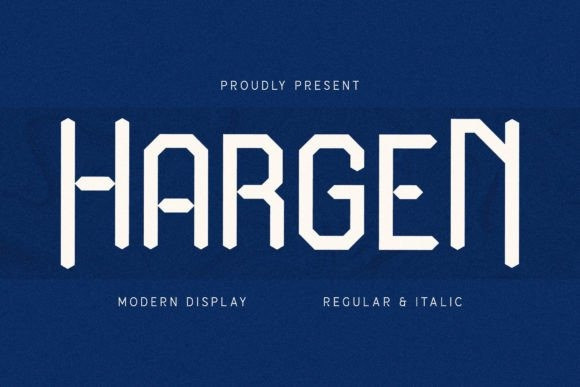
Hargen Font
Hargen Font, created by Storytype, it that has own unique style & modern look. This typeface is perfect for an elegant & luxury logo, book or movie title design, fashion brand, magazine, clothes, lettering, quotes, and so much more.